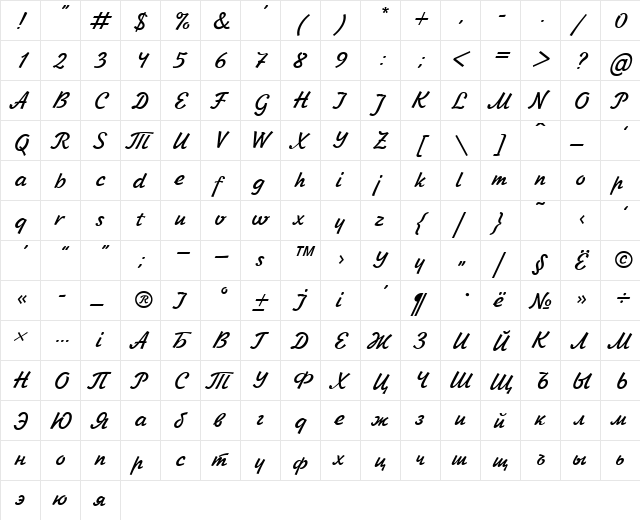
Jikharev Plain Font Preview
Jikharev Plain
Design Context for Jikharev Typeface
Jikharev takes a measured approach to typography — its balanced proportions and neutral character make it a reliable workhorse for both digital and print work.
Pro Tip: Use Jikharev in both headline and body roles to test its range before committing to a single application.